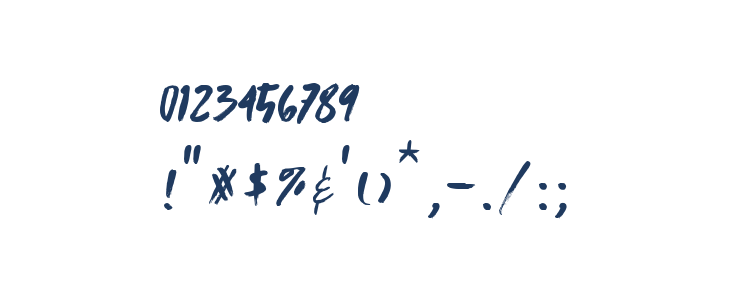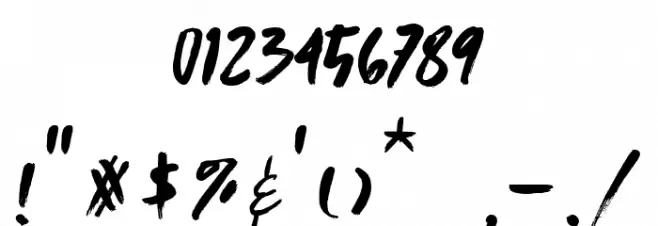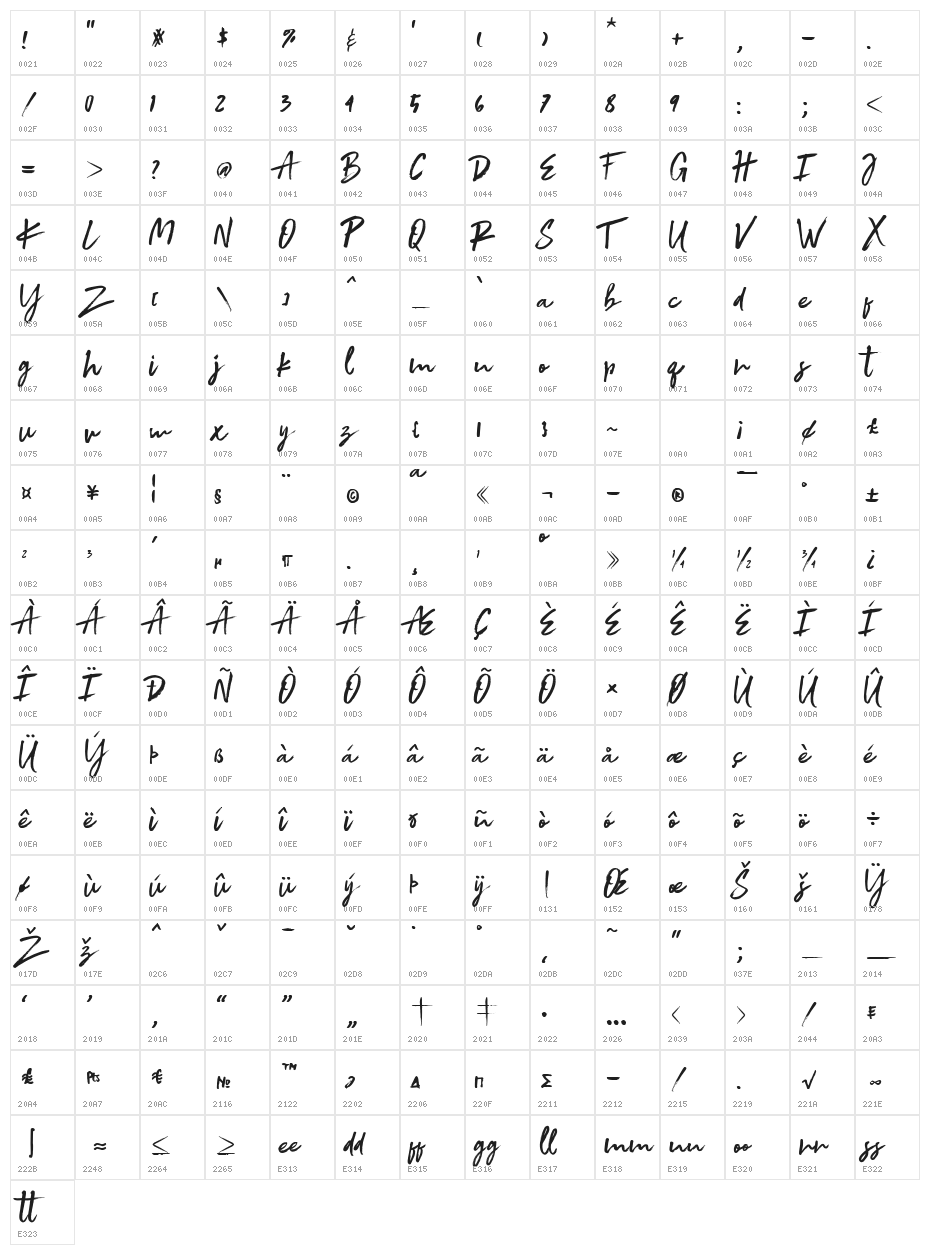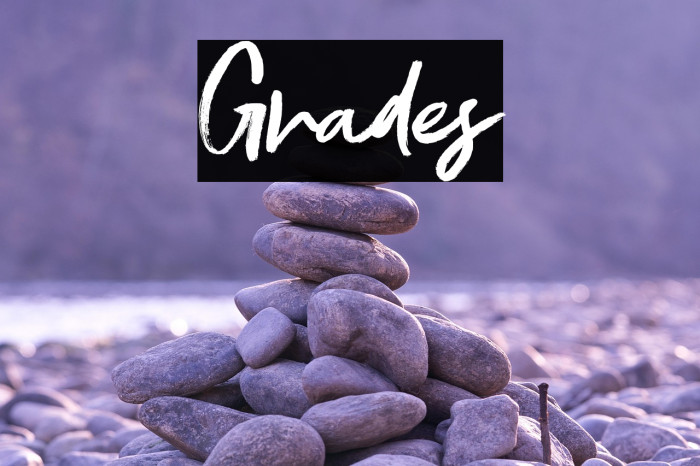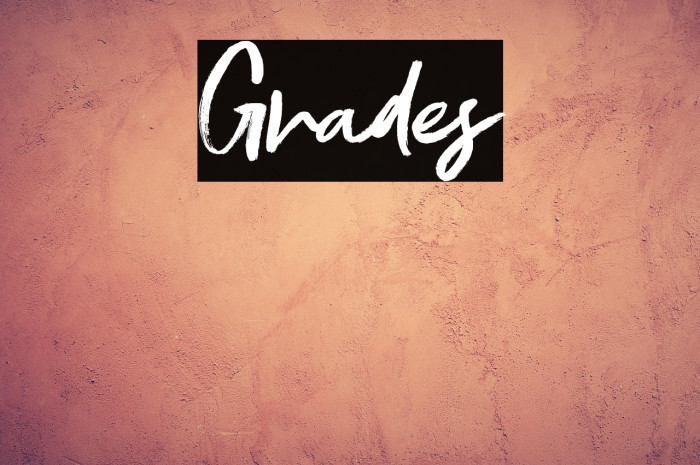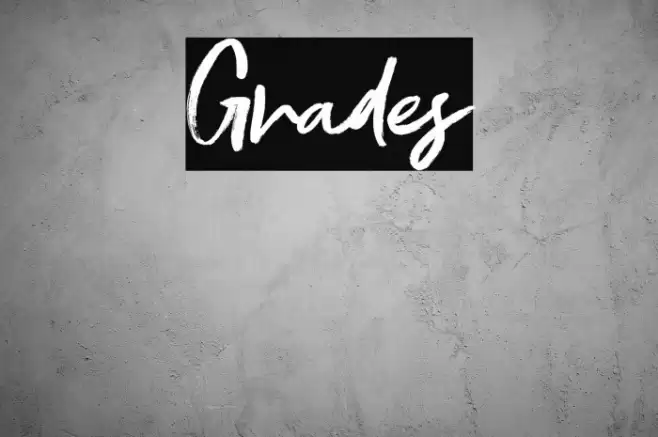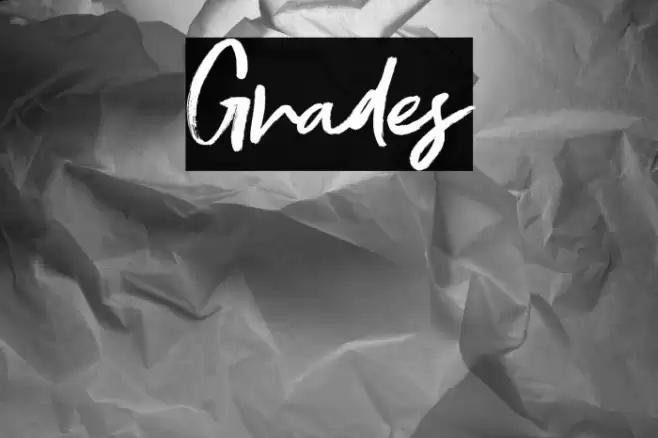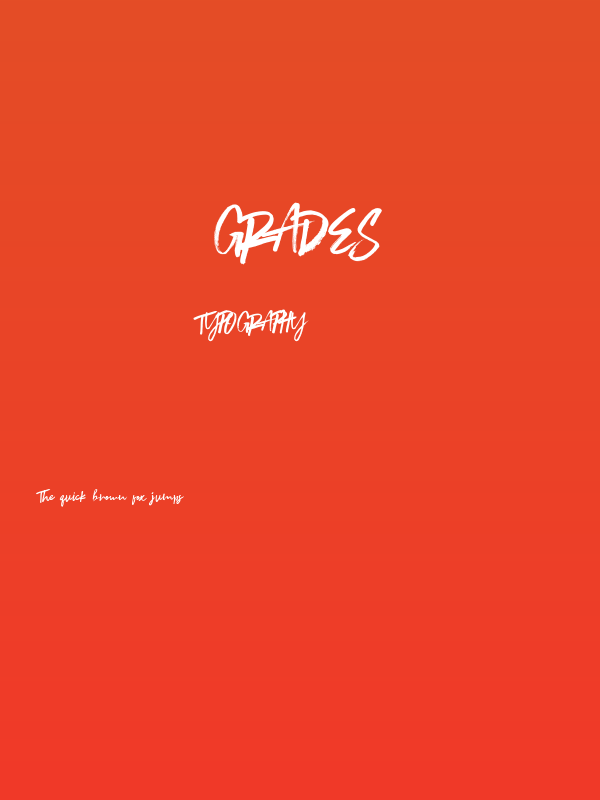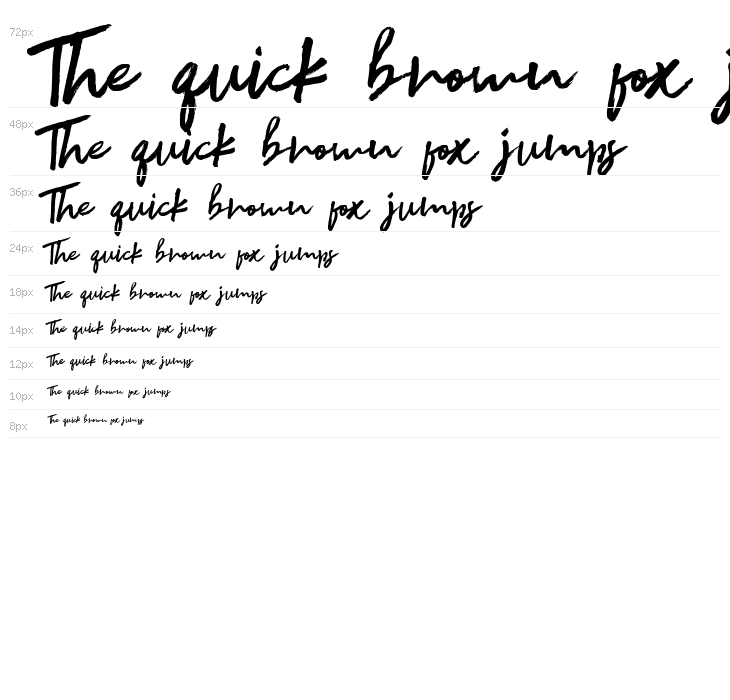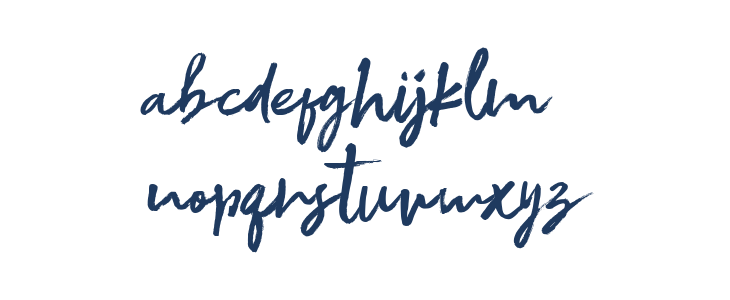
Grades Font
Grades Description
This font features a bold and expressive handwritten style, characterized by its dynamic brush strokes and fluid motion. The uppercase letters are bold and slightly slanted, giving a sense of movement and energy. The lowercase letters maintain a consistent flow, with some characters connecting seamlessly. Numbers and special characters follow the same energetic style, making them stand out. The overall appearance is artistic and informal, suitable for creative and expressive design projects.